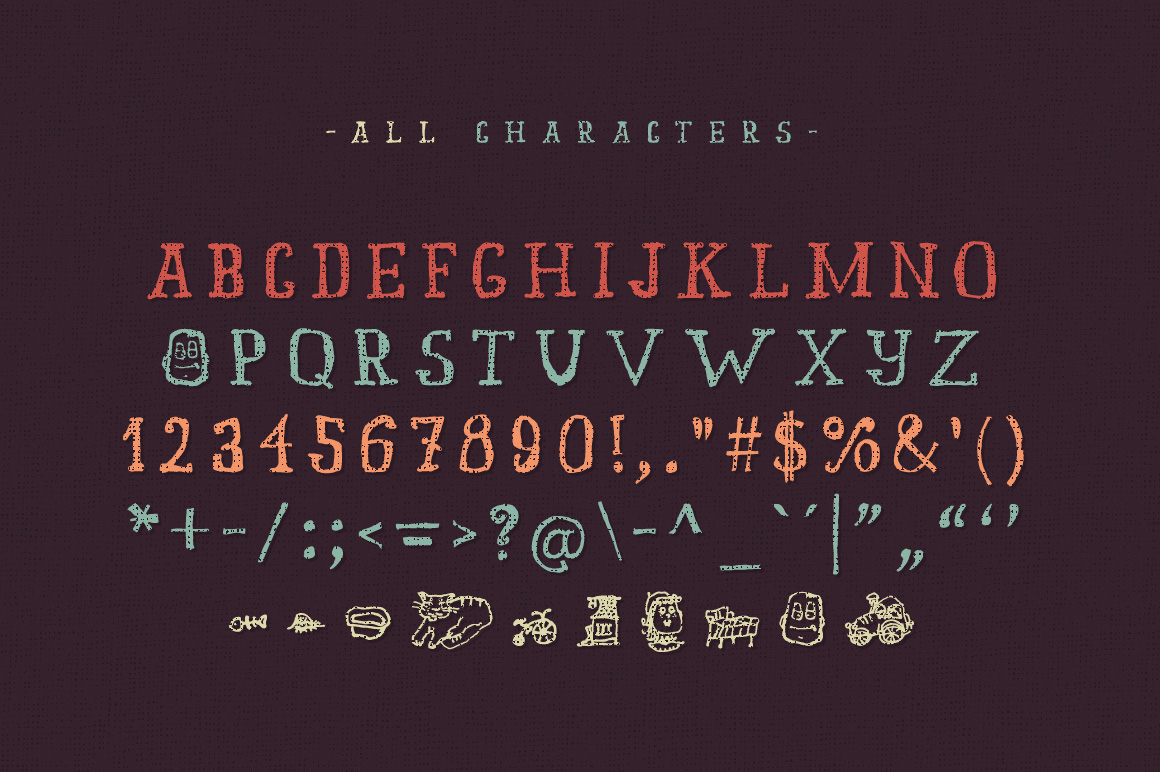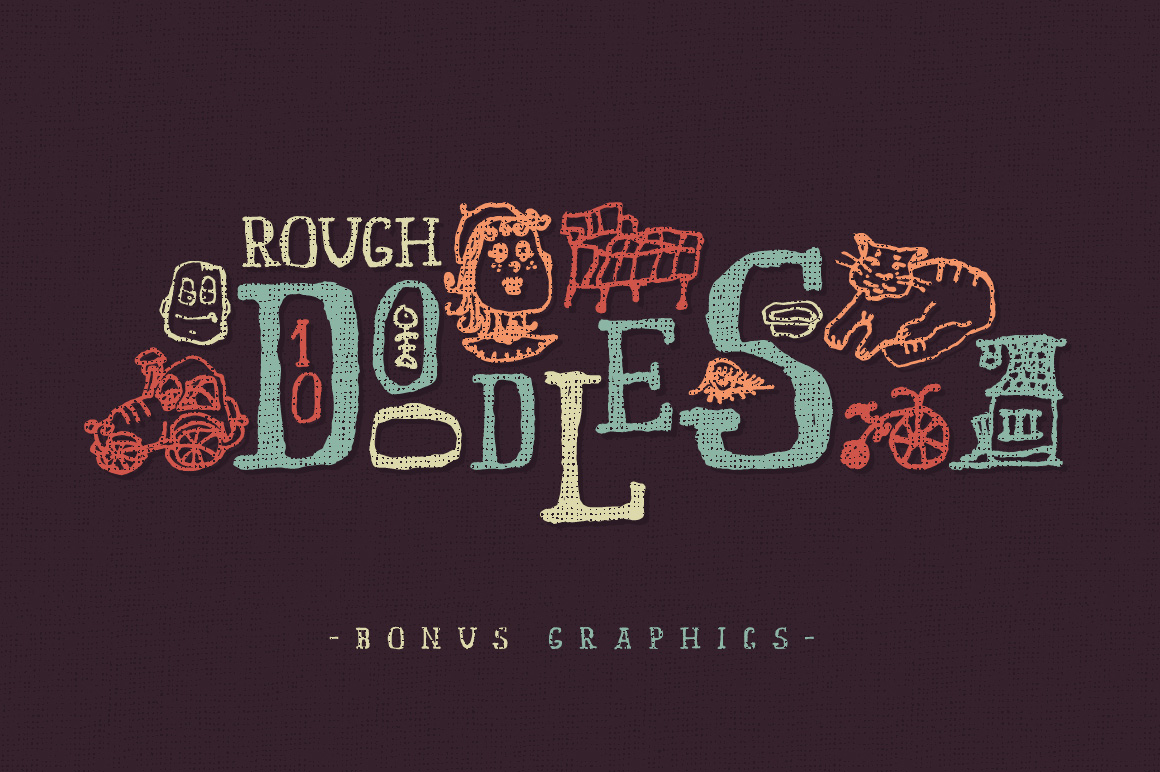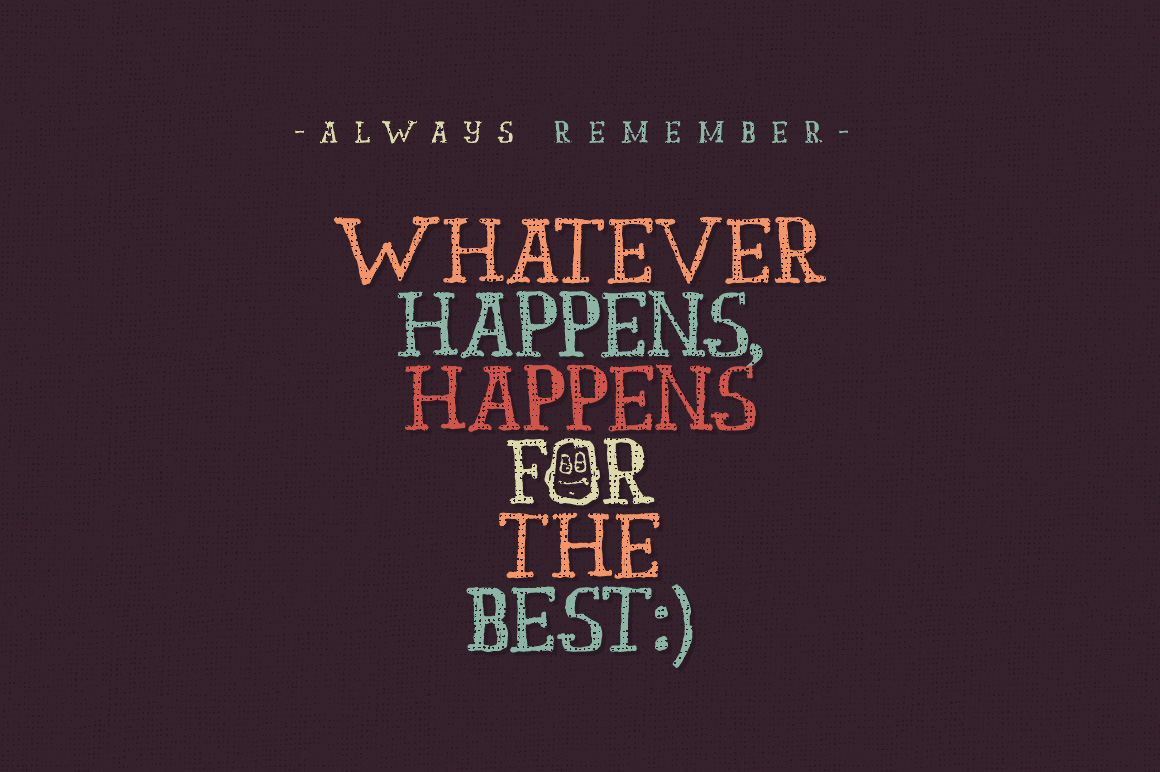
Getting Creative with the Old Story Font
Have you ever found yourself stuck in a design rut, scrolling through design resources in search of that perfect touch to elevate your creative project? It was a moment like this that led me to stumble upon the delightful Old Story Font – a quirky typeface that brings a smile to my face every time I see it.
This charming font is more than just a pretty face, though – it’s a valuable resource for designers looking to add a playful twist to their work. With its high-quality design and transparent background, it’s the perfect addition to any creative project. And the best part? It’s available for free download, making it an accessible and affordable resource for designers of all levels.
Key Features of Old Story Font
- Includes a transparent background for versatile application
- Supports a wide range of languages and characters
- Unique, vintage-inspired aesthetic for adding a touch of nostalgia to designs
Honest Review: Old Story Font
I recently had the chance to dive into the Old Story Font and I’m here to share my honest thoughts. As a designer, I’m always on the lookout for high-quality design resources that can elevate my creative projects. The Old Story Font delivers in this regard.
- ✨ High-quality design with intricate details that add a touch of elegance to any project.
- ✨ A wide range of glyphs, making it suitable for various languages and creative applications.
- ⚠️ Limited font weight options, which may restrict its use in certain design scenarios.
- ⚠️ Some users may find the font too ornate, which could be a drawback for simpler designs.
Overall, the Old Story Font is a solid addition to any designer’s toolkit. While it may not be perfect, its strengths outweigh its limitations, making it a great choice for creative projects that require a touch of sophistication.
How to Use Old Story Font
The Old Story Font is a high-quality, free download design resource ideal for creative projects. With its unique and vintage aesthetic, it’s perfect for adding a touch of nostalgia to your designs.
Experiment with different font sizes, colors, and styles to achieve the desired look. You can also combine the Old Story Font with other design elements, such as graphics or illustrations, to create a unique and engaging design.
The Old Story Font is perfect for a variety of creative projects, including:
- Book covers and booklets
- Brand logos and marketing materials
- Photography and art prints
Compared to Old Story Font, Alex Brush Font has a more refined and polished look, making it suitable for formal and professional designs. It is also more versatile, with a wider range of font sizes and styles available.
Carolyna Pro Font is a modern, elegant font designed for creative projects that require a touch of sophistication. It is available for free download and can be used in a variety of design resources, including logos, business cards, and website headers. With its transparent background, it can be easily layered over other design elements.
Compared to Old Story Font, Carolyna Pro Font has a more modern and sleek look, making it suitable for contemporary and minimalist designs. It is also more versatile, with a wider range of font sizes and styles available.
Pacifico Font is a beautiful, handwritten font perfect for creative projects that require a touch of warmth and personality. It is available for free download and can be used in a variety of design resources, including logos, invitations, and website headers. With its transparent background, it can be easily layered over other design elements.
Old Story Font is designed at a high resolution of 300 DPI, making it suitable for a wide range of creative projects, from print materials to digital designs. The high-quality design ensures that the font looks crisp and clear, even when scaled up or down.